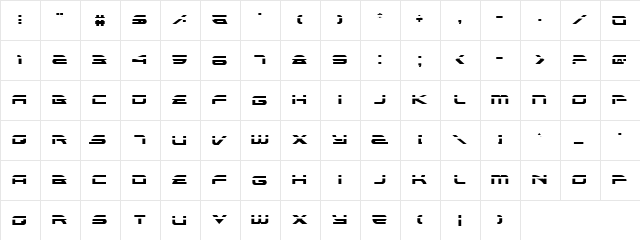
Alexis Laser Laser
Design Context for Alexis Laser Typeface
Alexis Laser is a composed and adaptable typeface that performs quietly and consistently across a wide range of design contexts.
Pro Tip: Use Alexis Laser in both headline and body roles to test its range before committing to a single application.